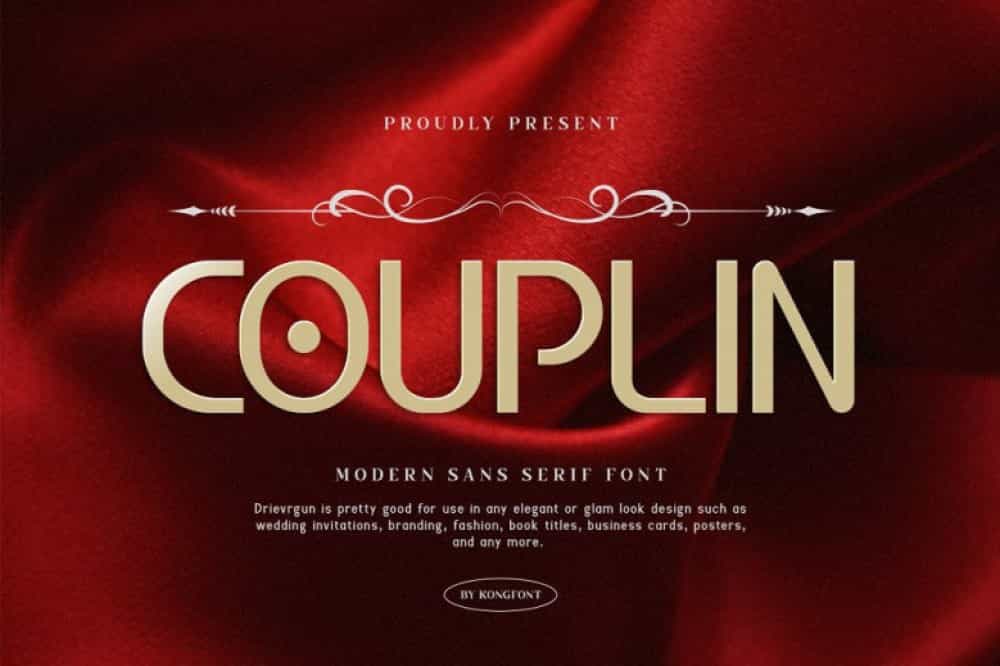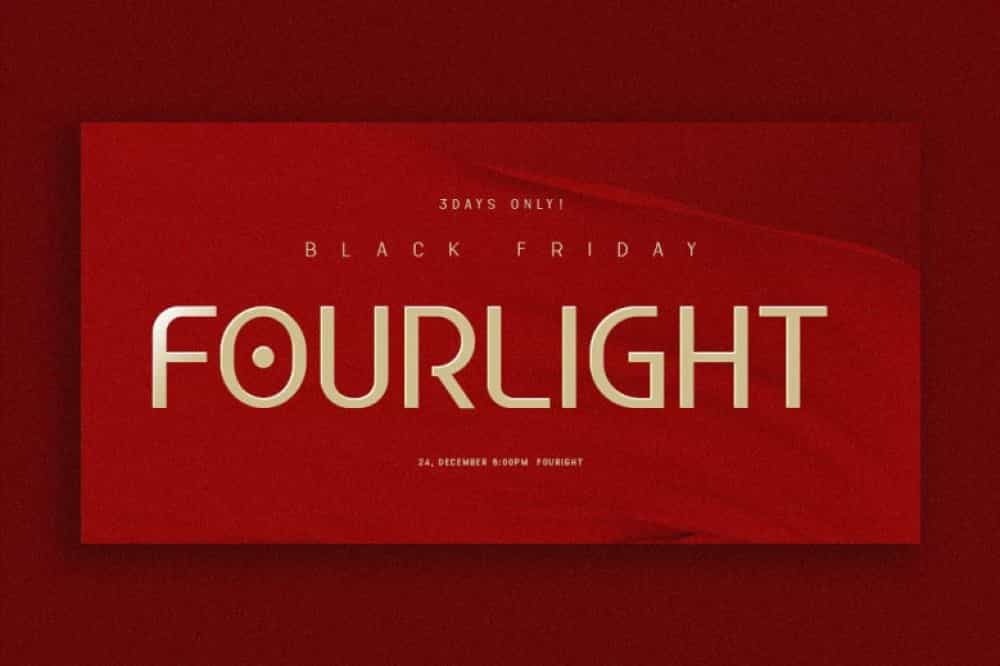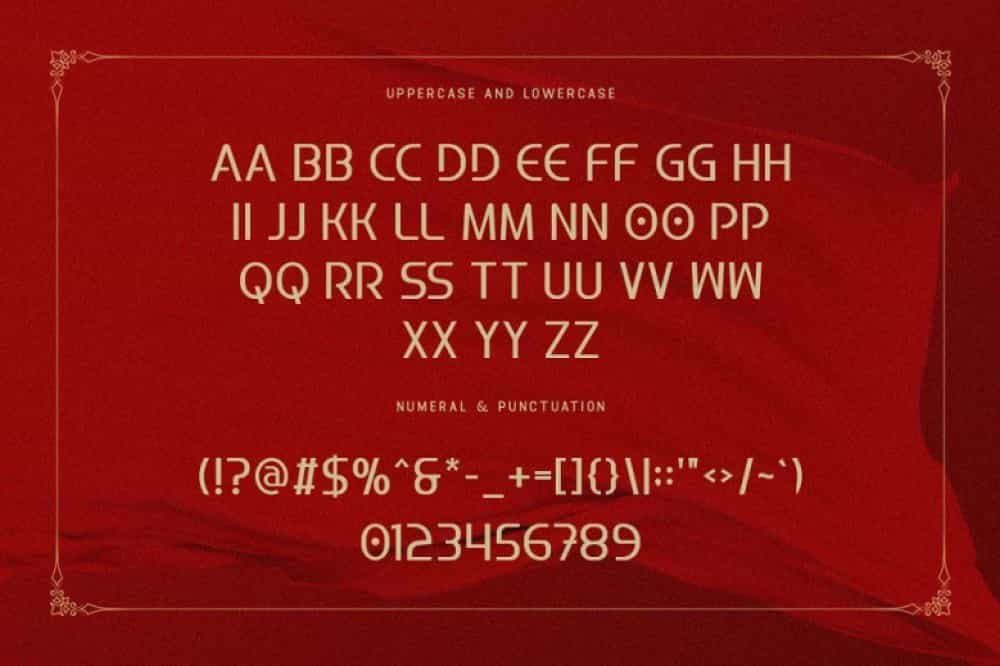
Couplin Font
Couplin is a very plain sans-serif font with the design that is reduced to the minimum. This font is a sans-serif font and has a contemporary look about it and is quite bold. This font can be used for both screen and print purposes; for example, for magazines, posters, and flyers. You can apply Couplin Font for corporate Identification, for example, to design logos and slogans of brands, brand boxes and wrapper, and advertisements.